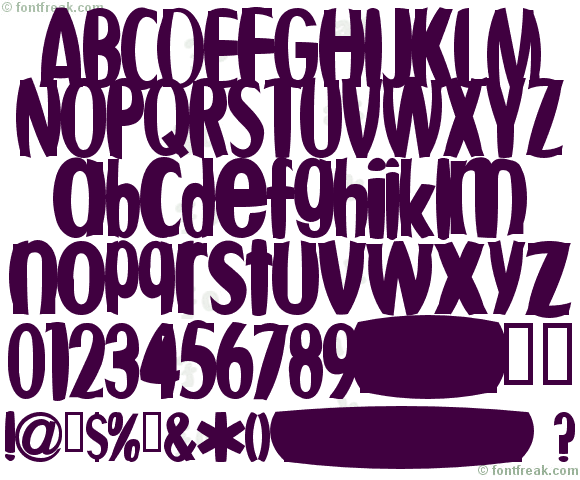
Fishbowl
About Fishbowl
The Fishbowl font, created by Greg Smith in 1997, is a unique display typeface that embodies a playful yet sophisticated aesthetic. As a decorative font, it features bold, rounded letterforms that command attention while maintaining an approachable charm. The stroke weight is consistent, lending a sense of balance and legibility, while the ample spacing between characters enhances readability. The design incorporates whimsical curves and unexpected flourishes, making it an excellent choice for projects that aim to evoke creativity and fun.
Best suited for use cases such as restaurant menus, children’s book covers, event posters, and branding for creative businesses, the Fishbowl font brings a delightful touch to any design. Its distinct style is ideal for graphic designers looking to add a playful element to their projects or small business owners wanting to capture the attention of their customers with an inviting visual identity. Content creators can also leverage this font for social media graphics, ensuring their posts stand out in a crowded digital landscape.
What sets the Fishbowl font apart is its ability to blend playful design with practical usability. It is not just a font; it’s a tool that enhances the storytelling aspect of any visual project. Whether you’re crafting a whimsical invitation or designing an engaging advertisement, the Fishbowl font will leave a lasting impression, making it a valuable addition to any designer's toolkit.